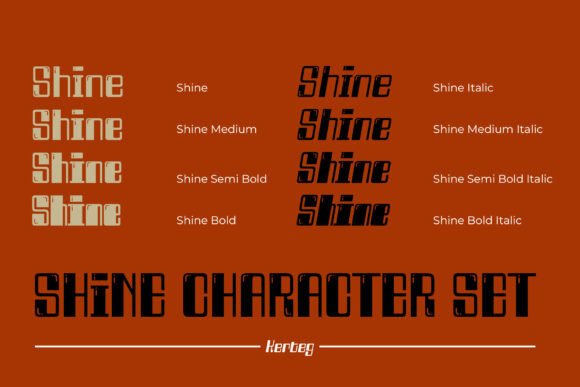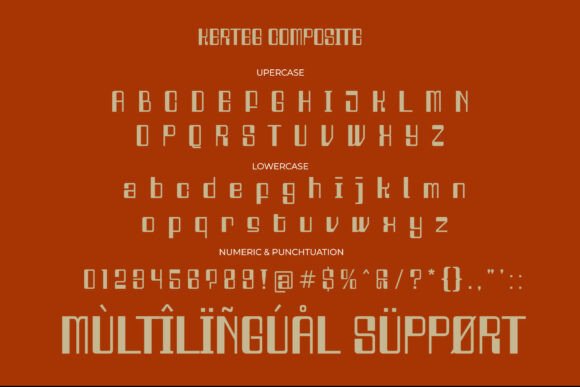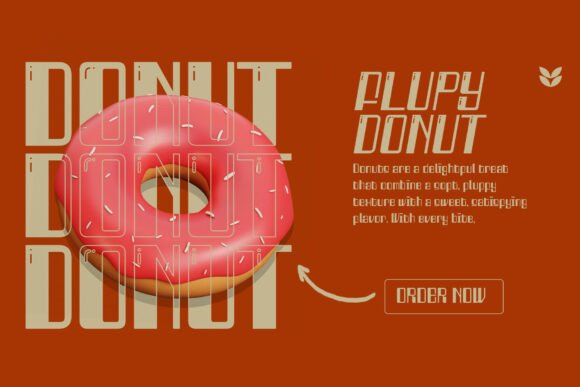
Introduction to Kerteg Font
Kerteg is a display sans serif font that breaks away from conventions.
Available in two distinct stylesβ€”Regular and Shineβ€”it offers a total of 16 flexible weights tailored for bold visual expressions The Shine version features a glossy, bubble-like effect, making it a standout option for playful yet structured typography.